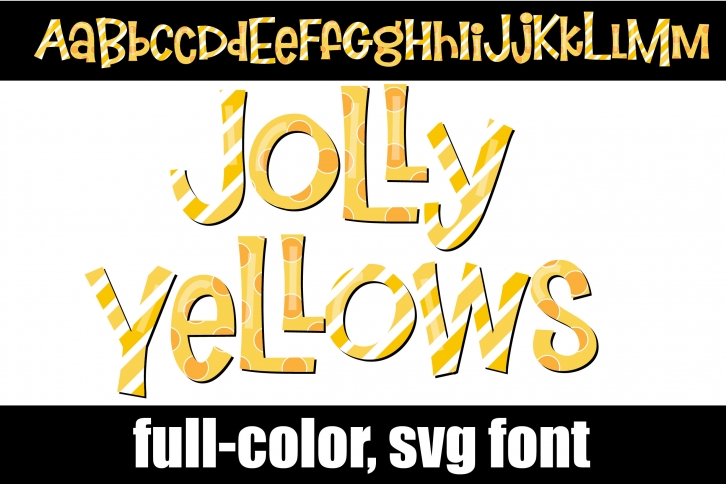
This full-color font features whimsical lettering in a yellow color palette. There are some fun ligatures like the double l’s to keep it creative. A second upper and lower alt case you can access through your system’s character map.